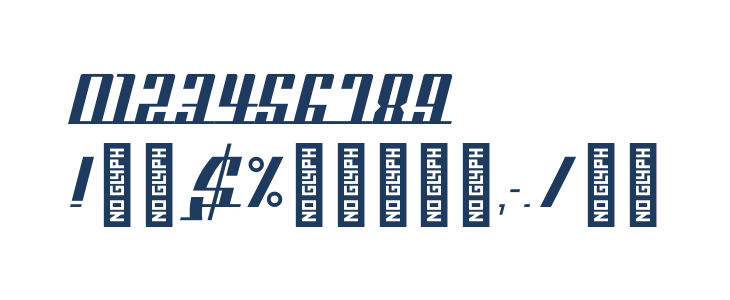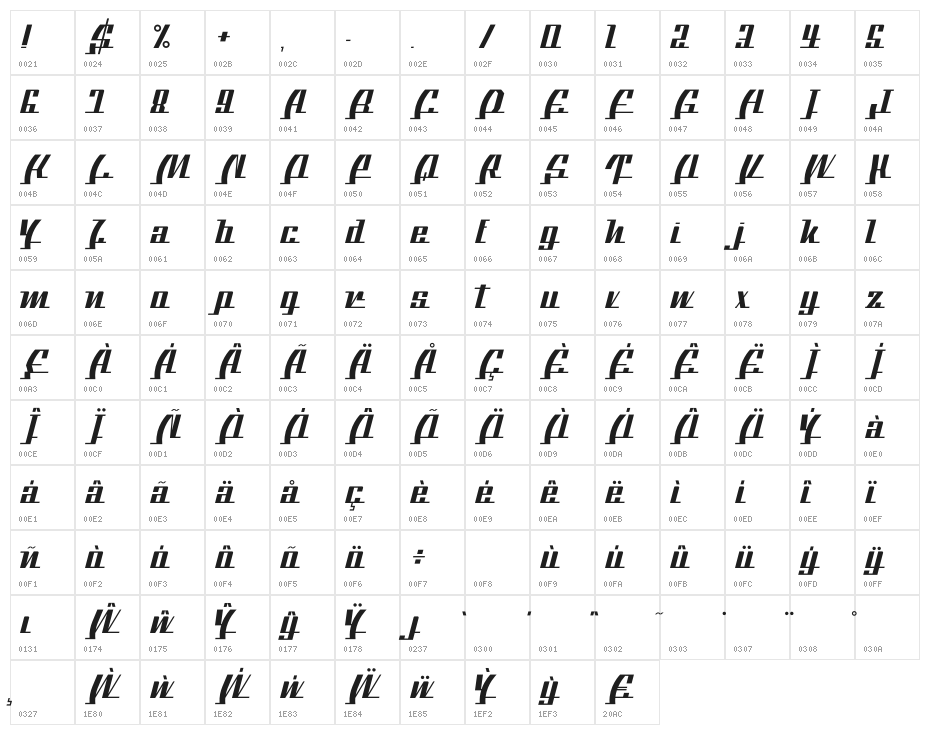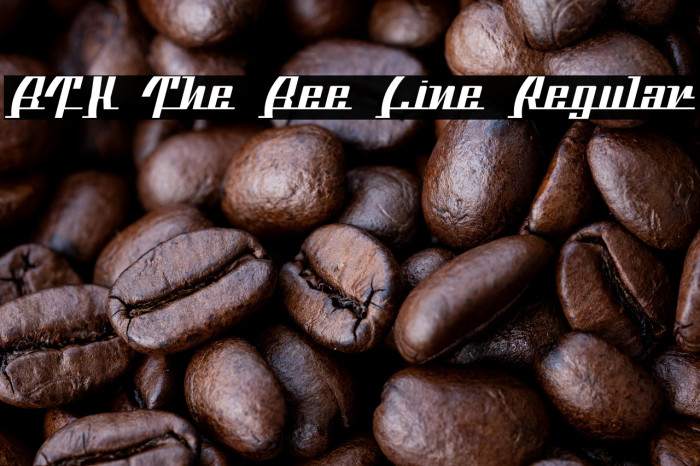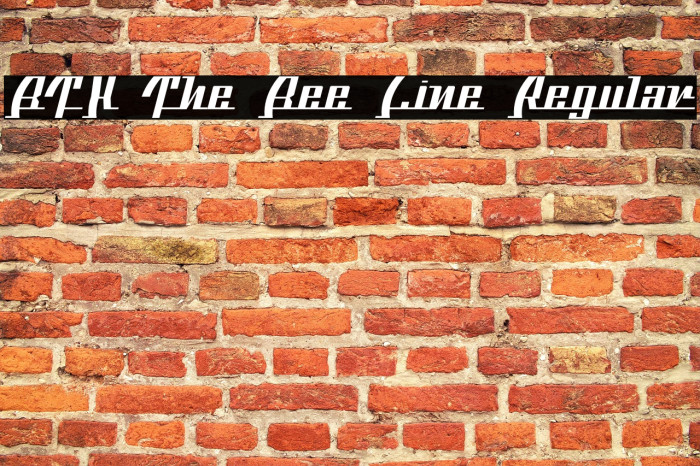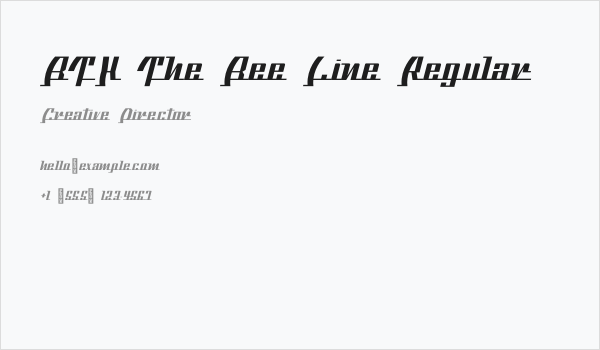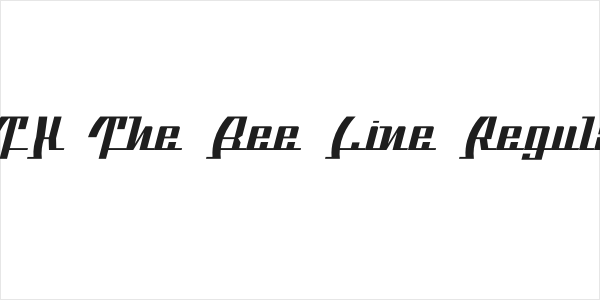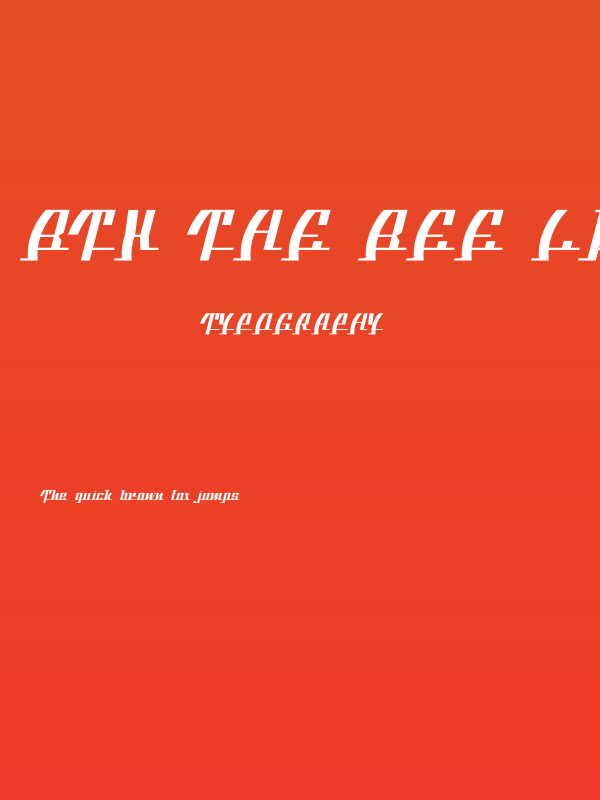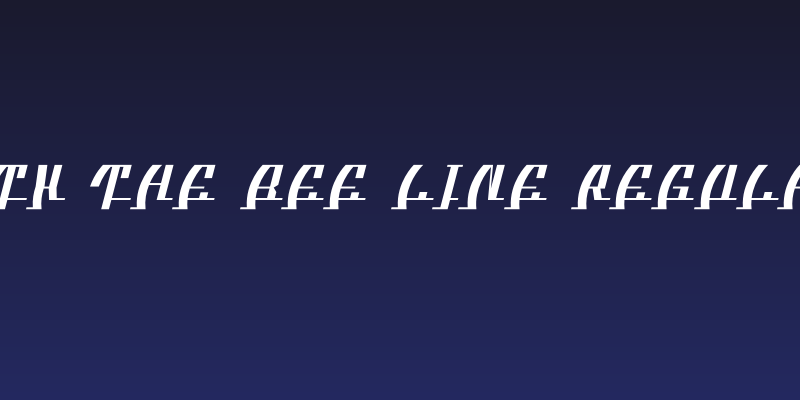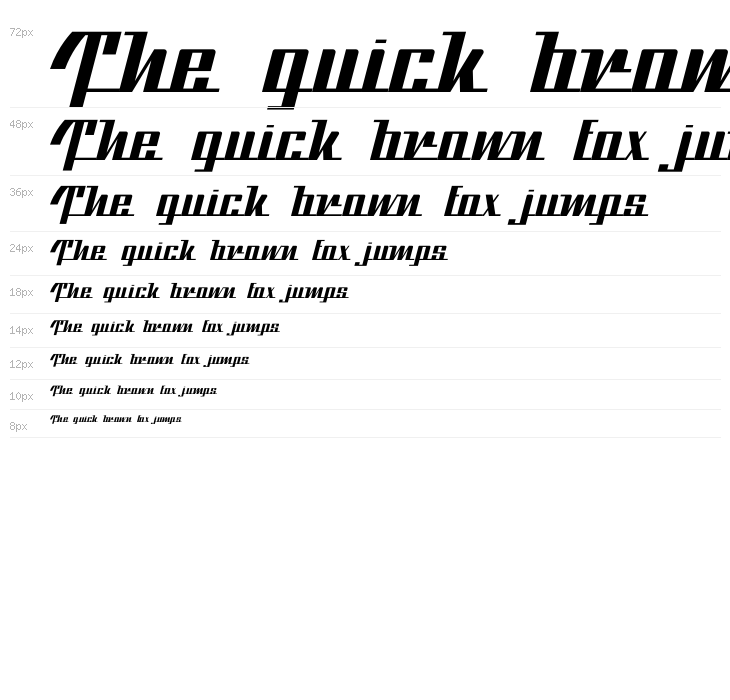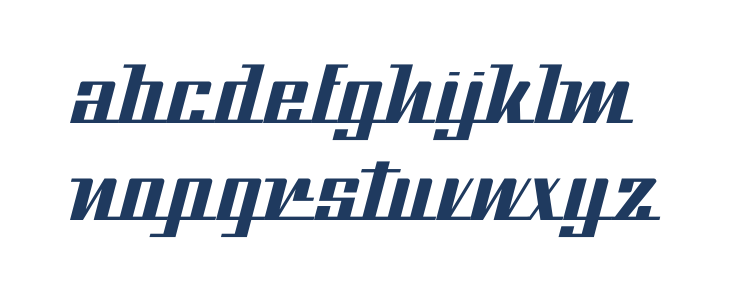
BTX The Bee Line Regular Font
BTX The Bee Line Regular Description
This font features a bold and dynamic style with a strong geometric influence. The characters are slanted, giving a sense of motion and speed, reminiscent of racing or futuristic themes. The uppercase letters are angular and sharp, while the lowercase letters maintain a consistent slant, enhancing the overall sleek appearance. The numbers follow the same stylistic cues, ensuring uniformity across all characters. The absence of certain special characters suggests a focus on alphanumeric use, ideal for impactful headlines or branding that requires a modern and edgy look.